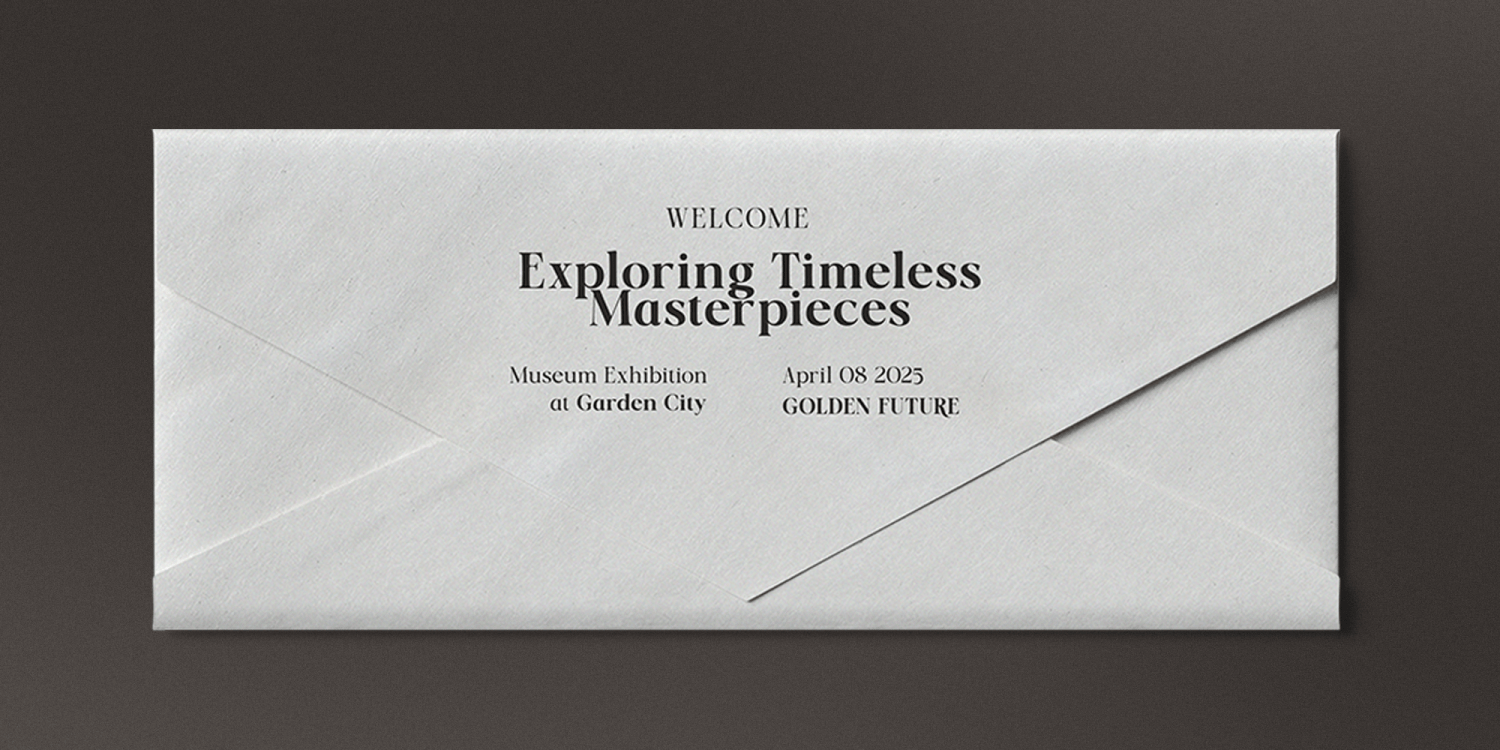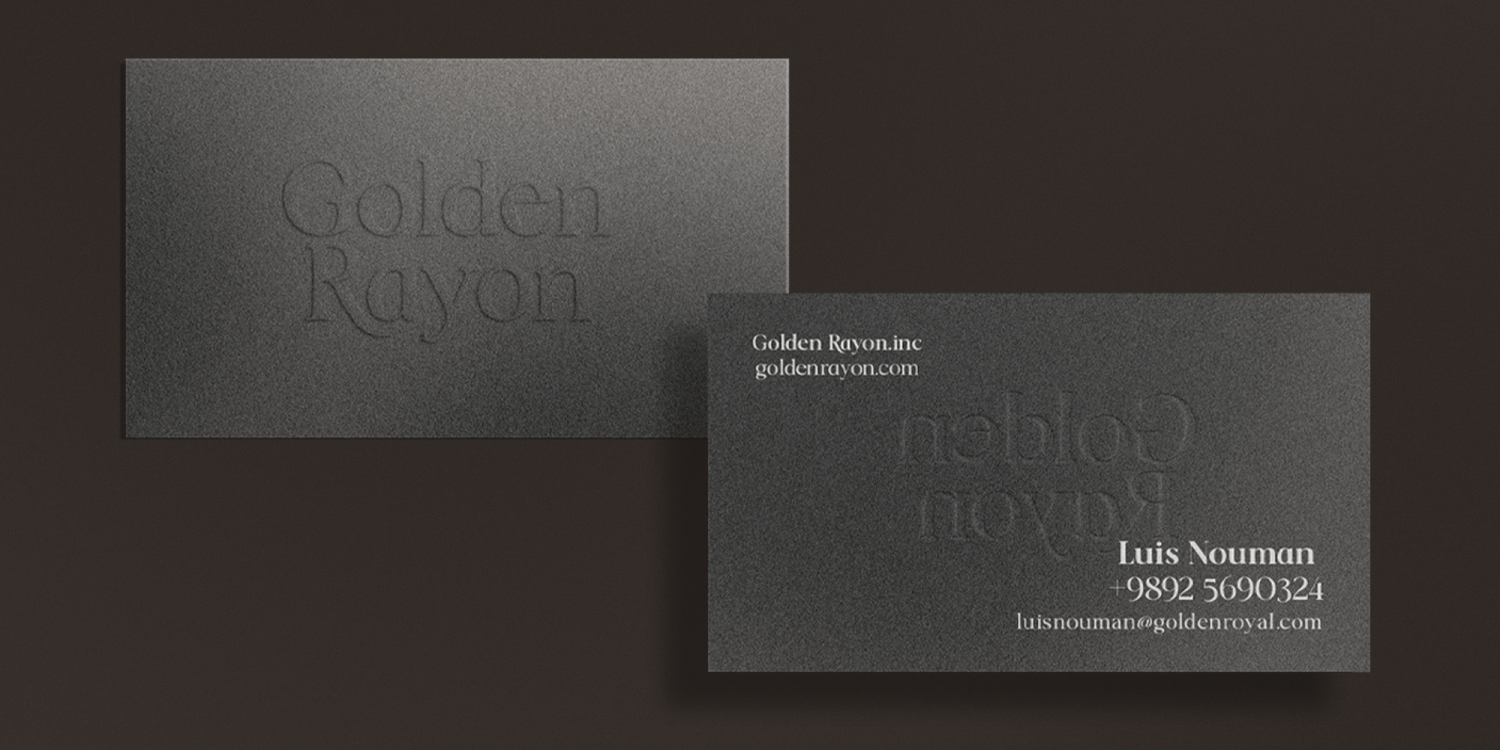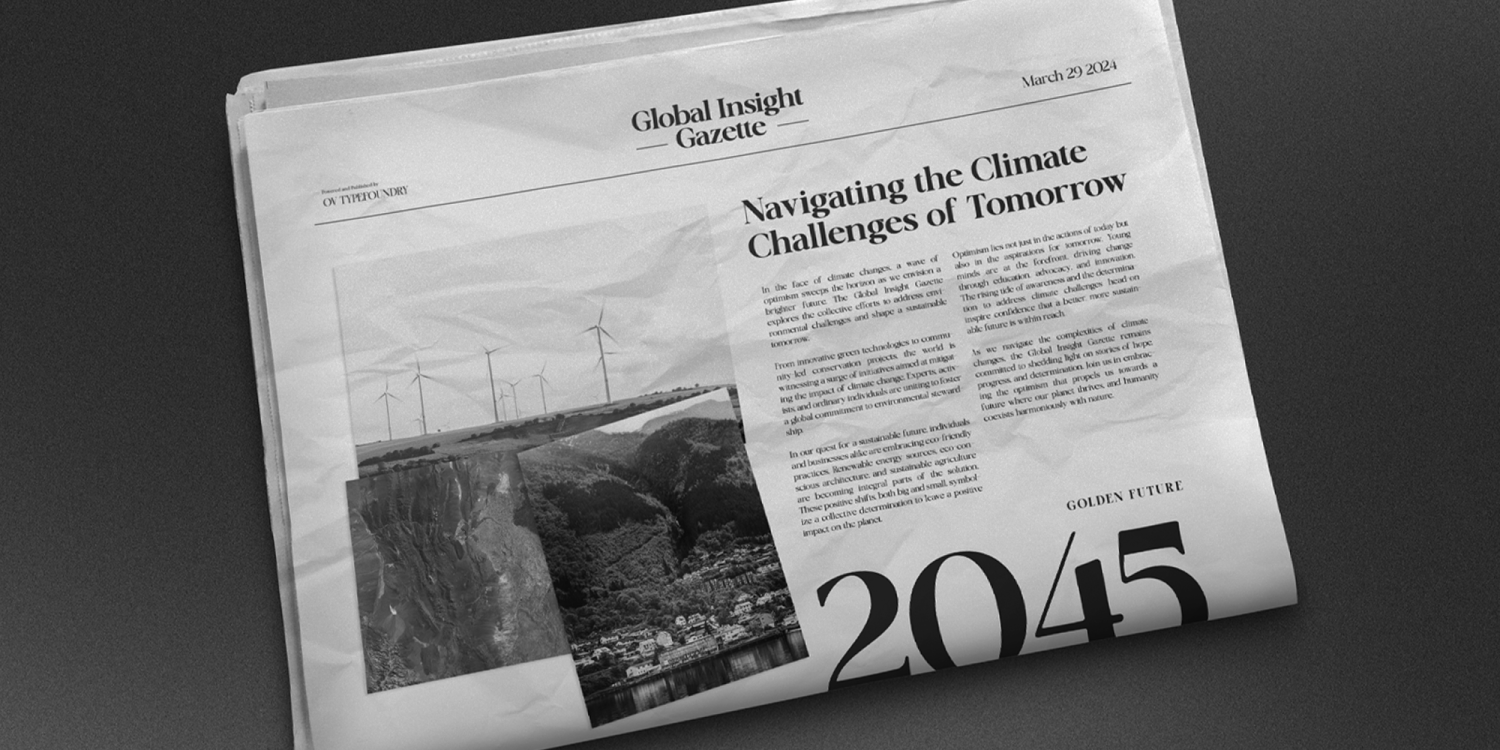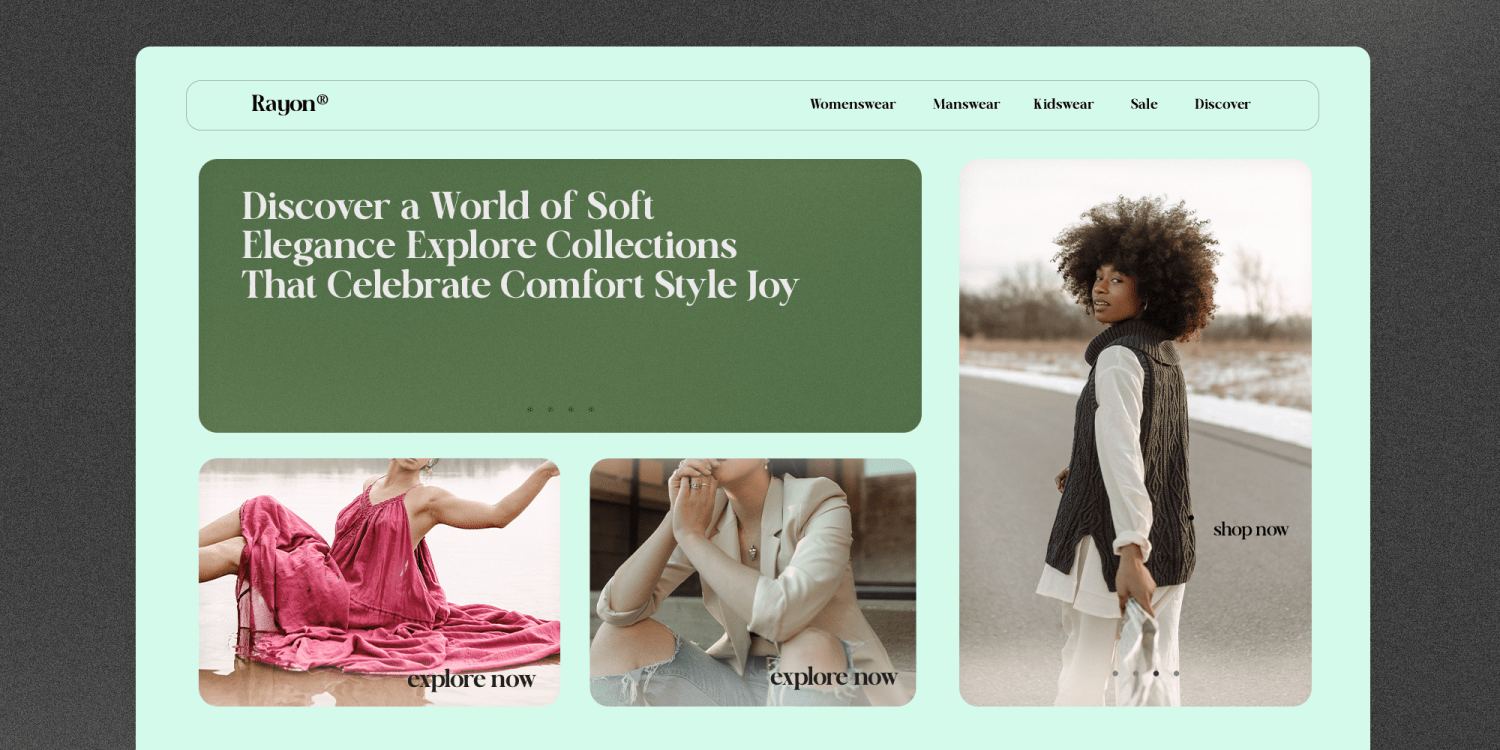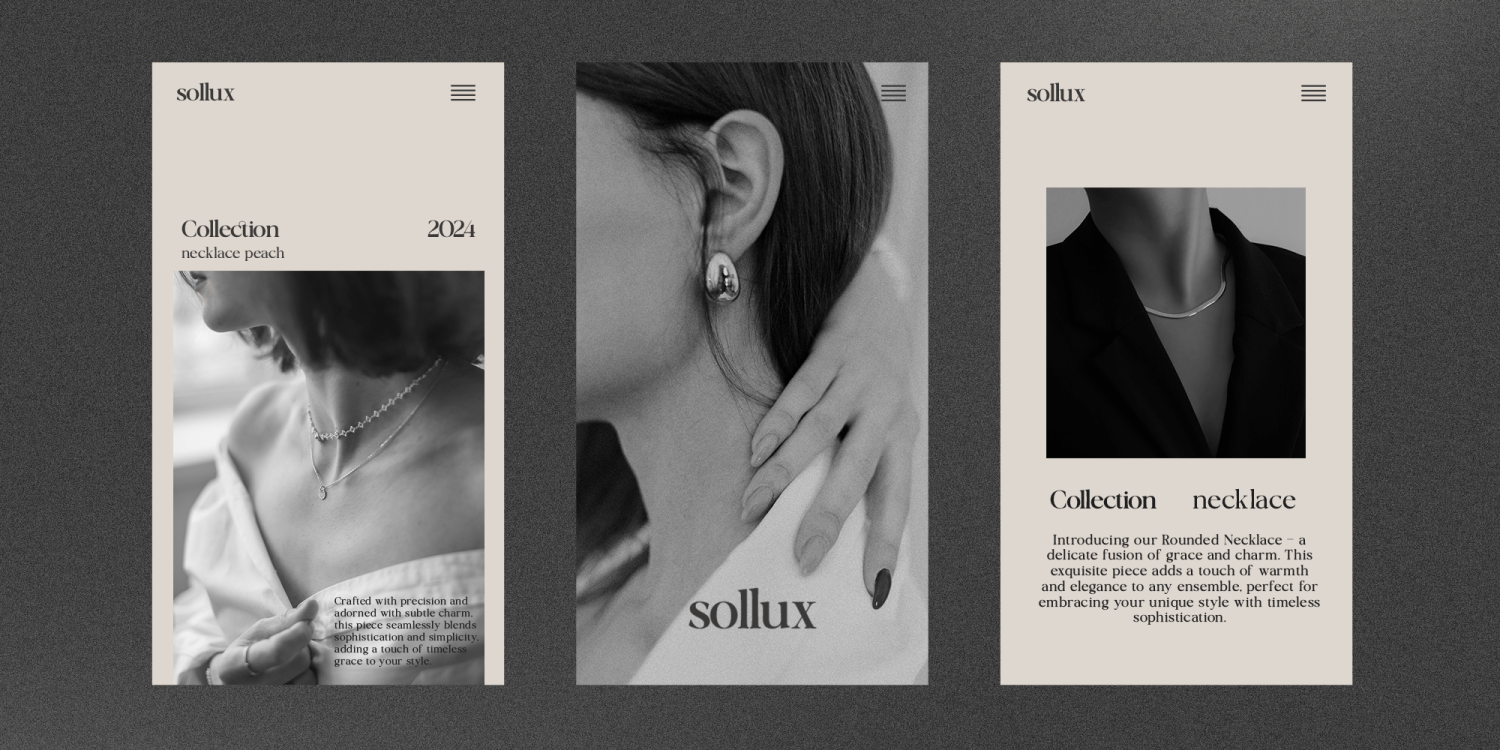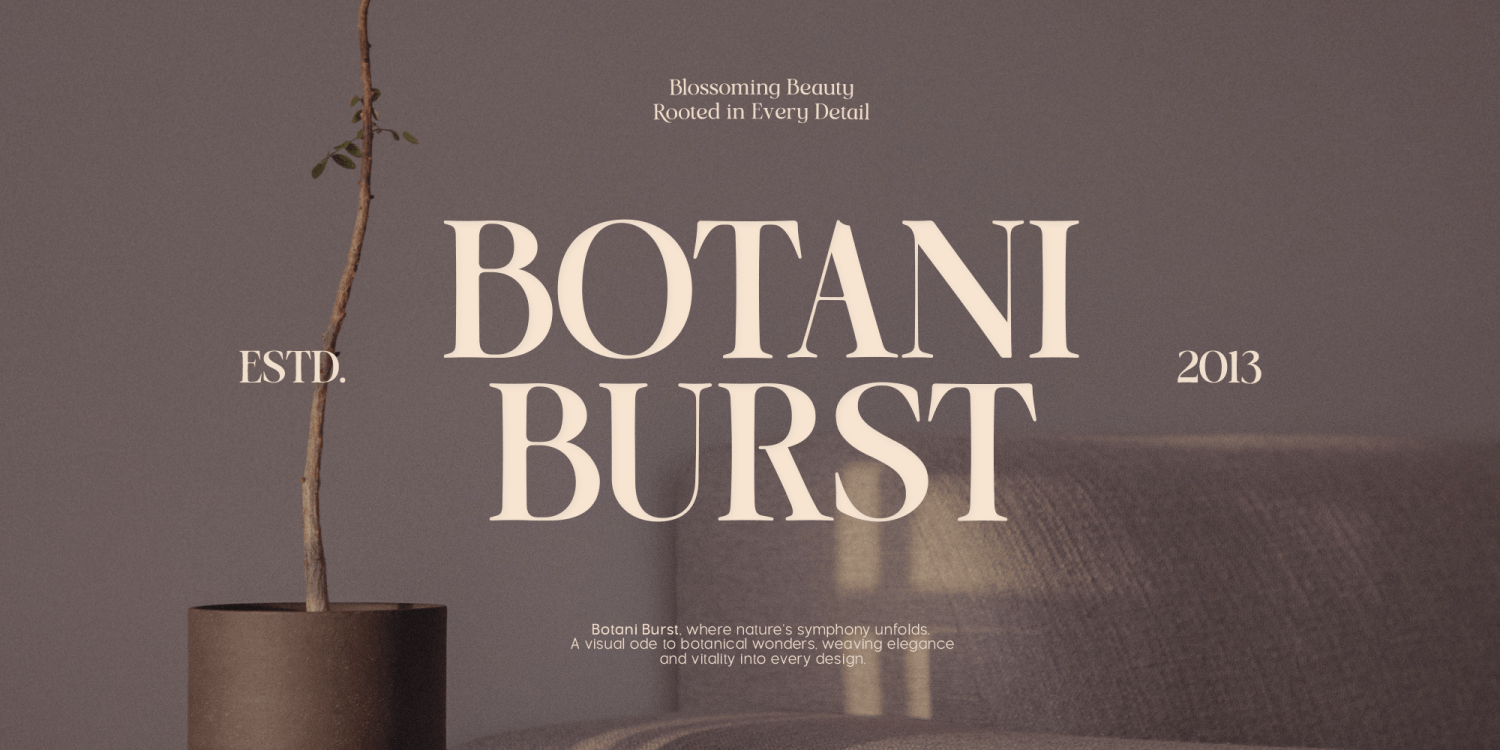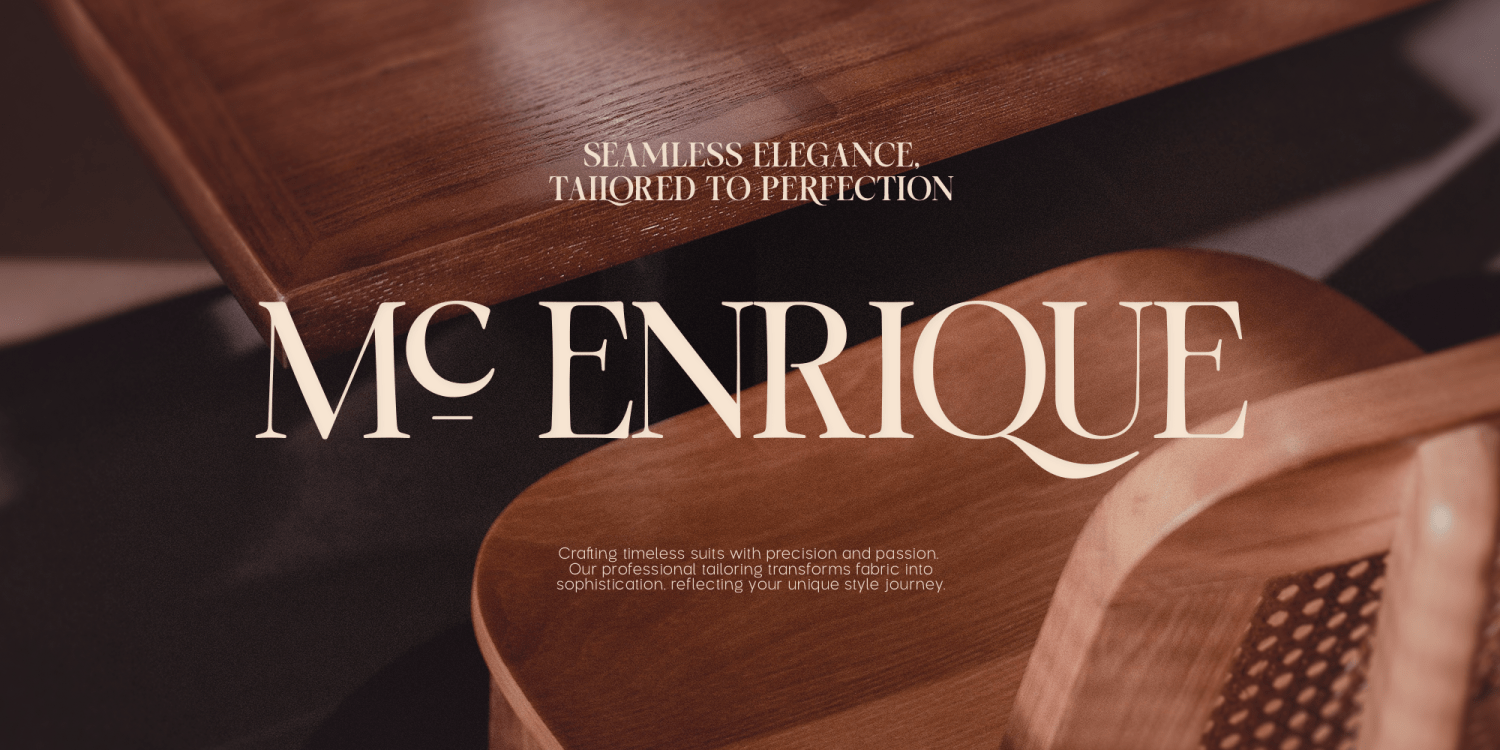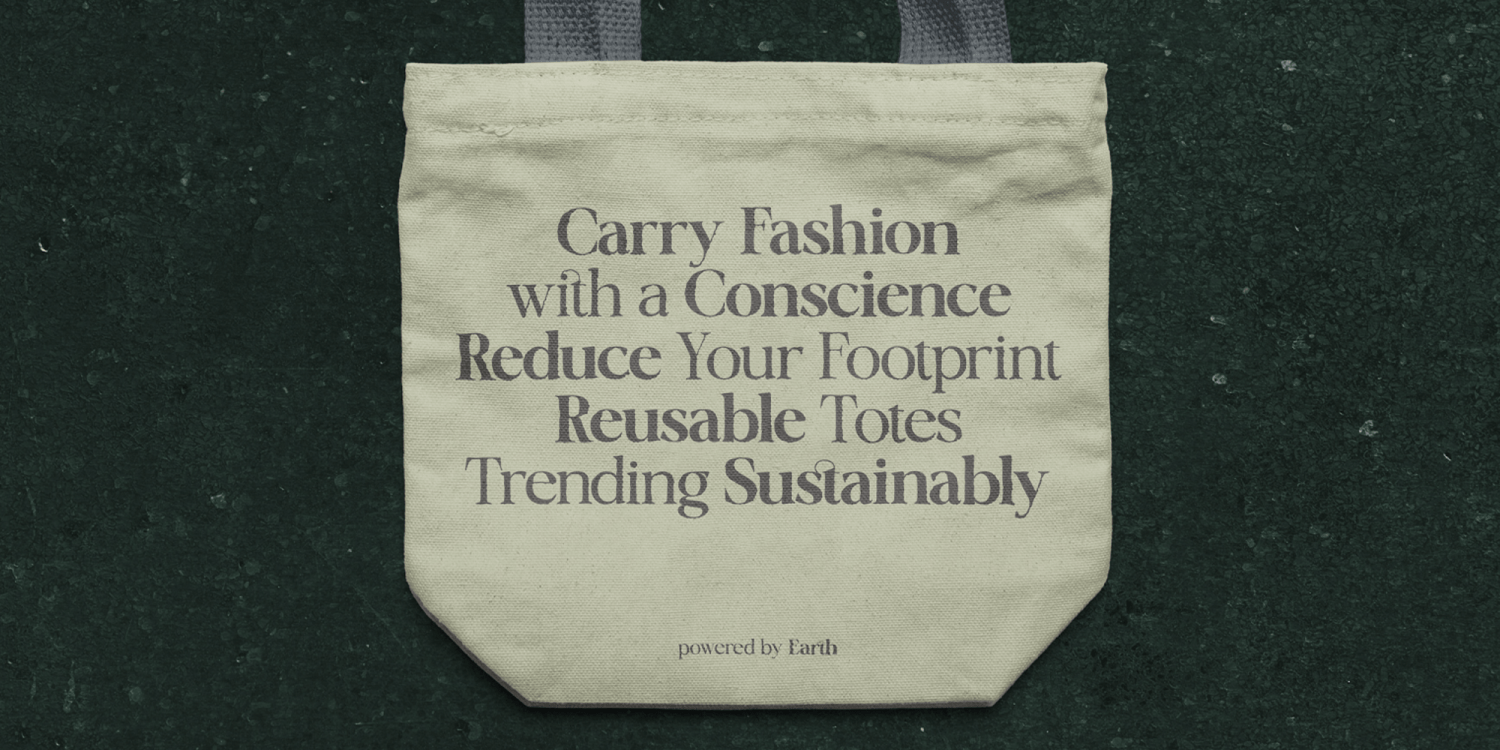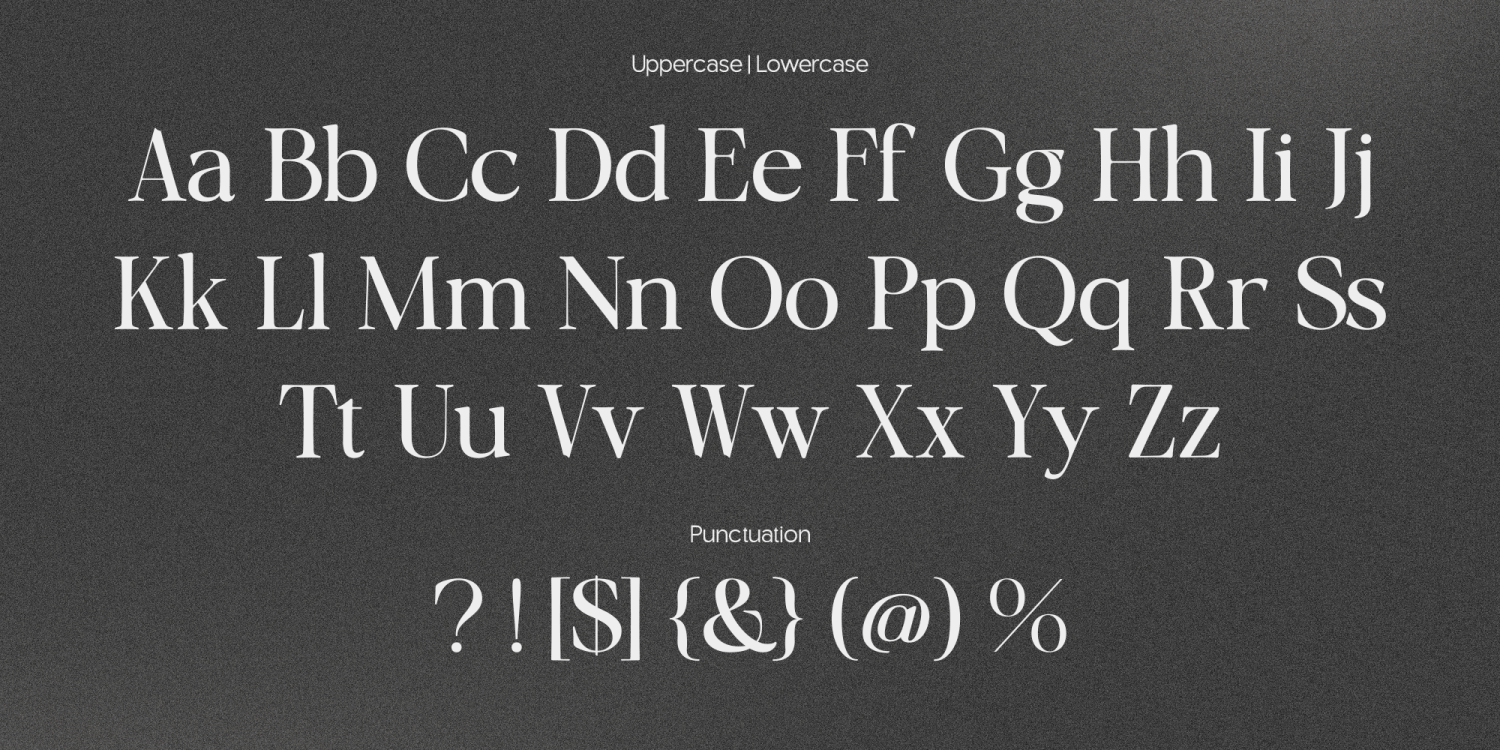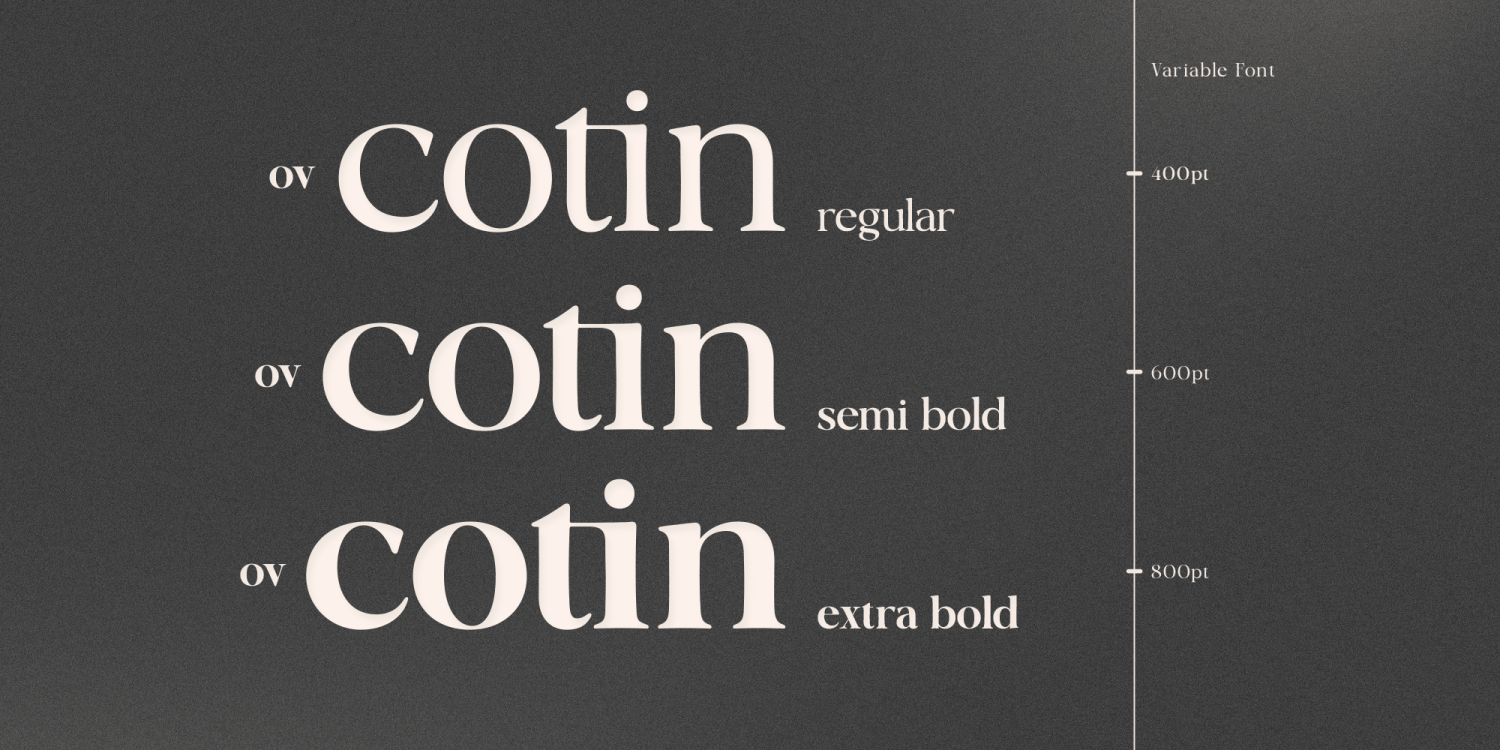
OV Cotin
Font Family by OV Type
OV Cotin, a timeless serif font with a classic foundation and a touch of modernity, has been updated to version 2.000!
Font Features:
• Font Family: Regular, Semi Bold, and Extra Bold
• Design: Harmonious balance between nostalgia and renewal
• Craftsmanship: Meticulously designed to evoke familiarity while embracing contemporary trends
• Versatility: Perfect blend of tradition and innovation, ideal for sophisticated projects
What's New in Version 2.000:
• Kerning: Improved kerning for better readability and visual appeal
• Alternates & Ligatures: Added more alternates and ligatures for creative flexibility
Elevate your designs with OV Cotin and let its versatile charm shine in every variable weight. Embrace the blend of tradition and innovation with this updated version!